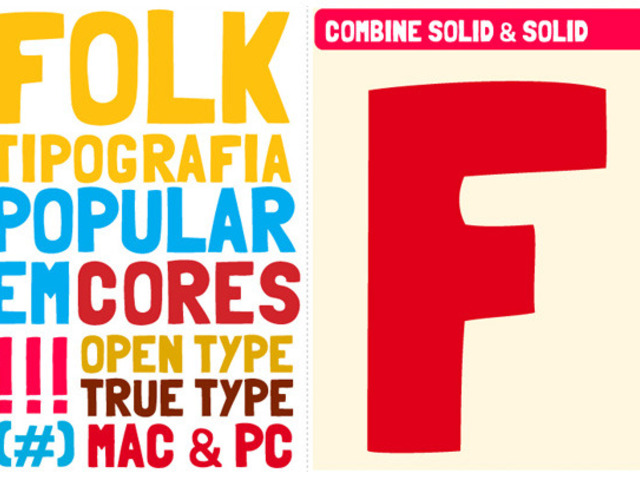
The origins of the Folk typeface project are in the streets of Sao Paulo, Brazil. Urban confusion. Initially made for a poster, I saw in that first start there was the potential for a typeface that could recall the feelings of the writing used day-to-day in my city’s informal communication.
In my design process I treated each 'error' as a 'hit,' to form a set of glyphs that fit together in a natural manner. That is the greatest quality of Folk, and perhaps one reason it has been used by a large number of people already: The fonts evoke a doodle on notebook, a sale poster at the supermarket, or one at the science fair.
The Folk font family is composed of 4 styles:
- Solid
- Shadow
- Outline
- Sketches
The idea is to combine the main typeface, Solid, with the other fonts, to create different outlines. With just its uppercase Folk has already become popular, used by Mozilla, the IFC film channel and Urban Outfitters - but it lacks the lowercase letters and other symbols needed for most typographic situations.
Folk is an excellent display type that makes an impact when used in sizes above 70pt. For designers it can be fun to match the styles when making big headlines and posters.
It is also readable in paragraph settings, and this Kickstarter project to add a lowercase will bring balance and lightness that the current version so badly needs.
With four different styles, Folk can provide websites an interesting and fun typographic experience.
When combining their styles, you can unleash your creativity, experiencing the feeling of writing with an authentic hand-made typeface.
Folk has been distributed without a fee for 4 years, and has a great following thanks to both its existing technical quality as well as its design. With the completion of the design of the lowercase glyphs, Folk become a complete typeface and will provide to users around the world a choice for a hand made typography with lots of fun and personality.